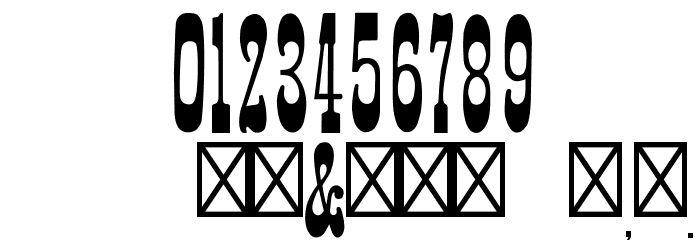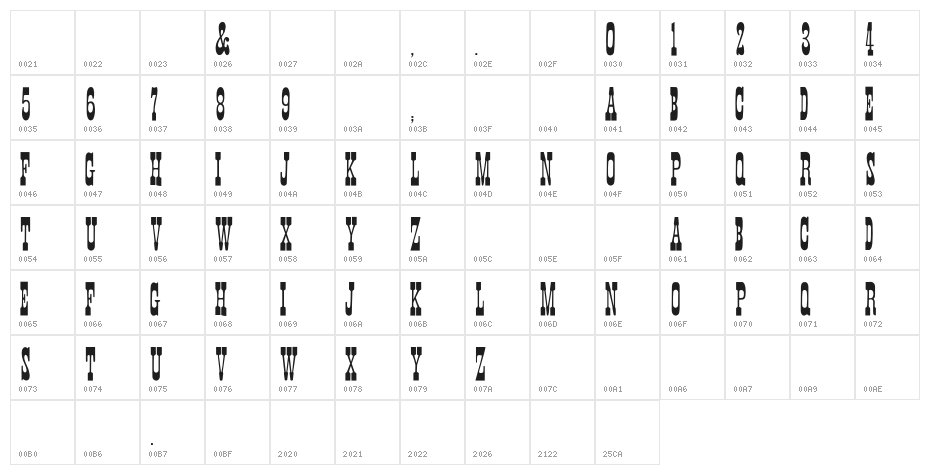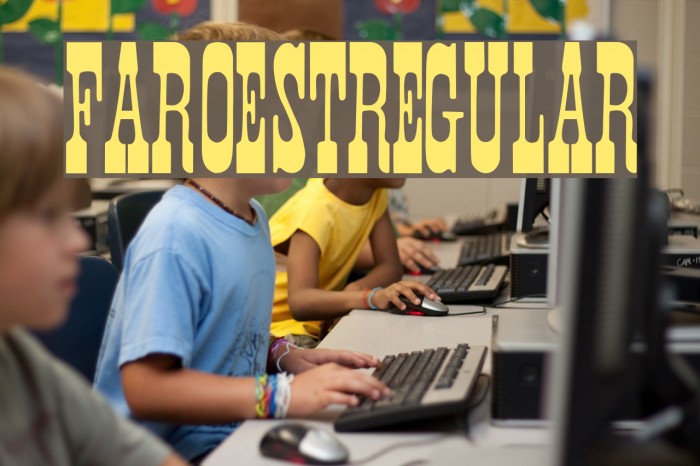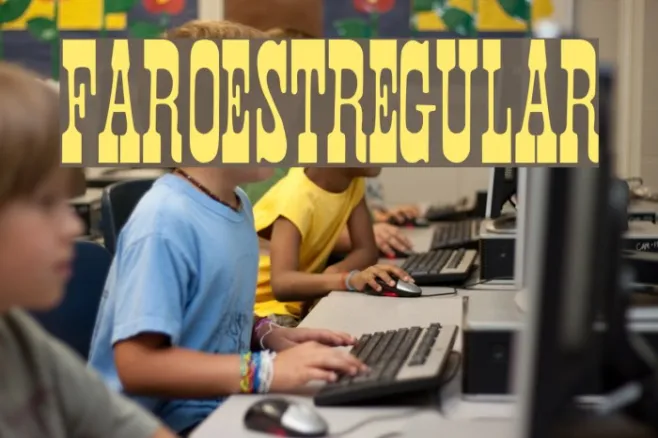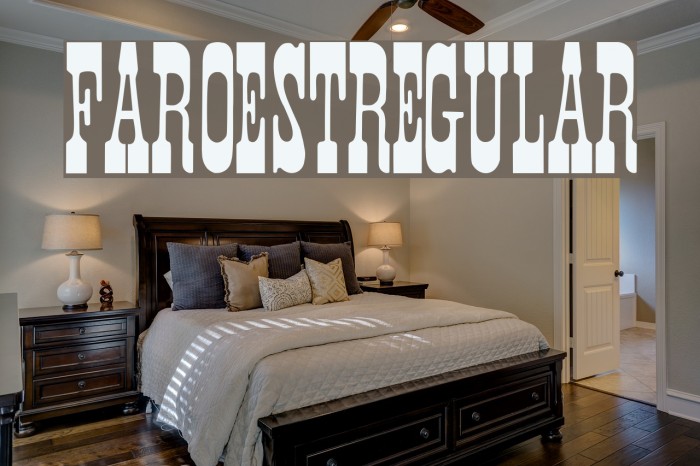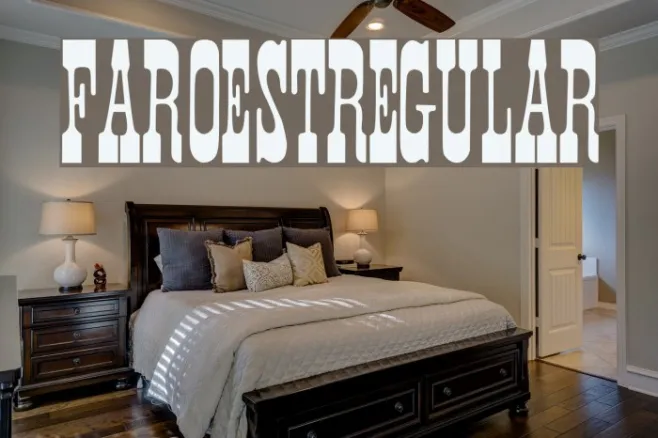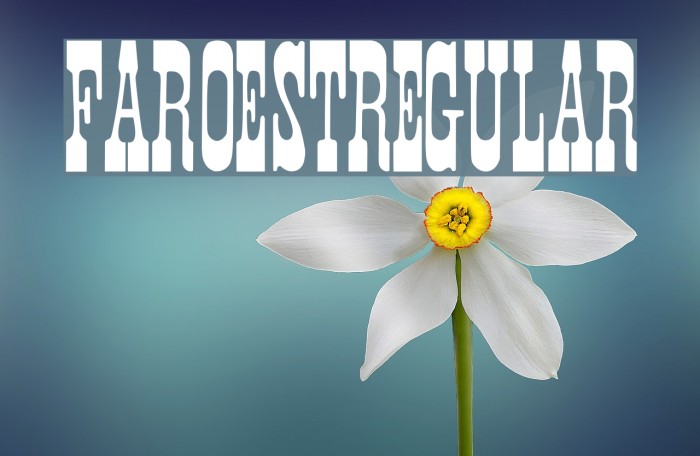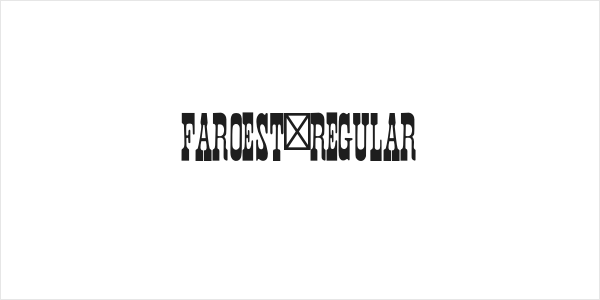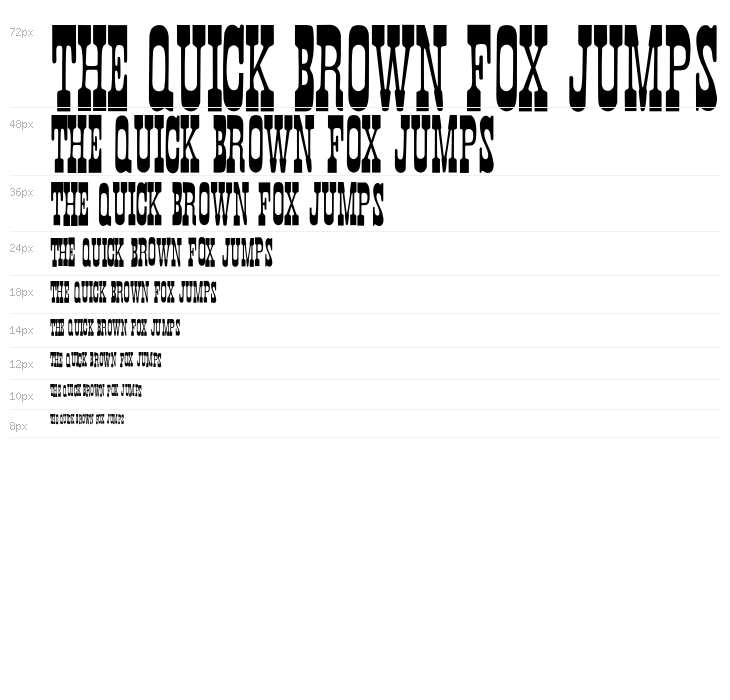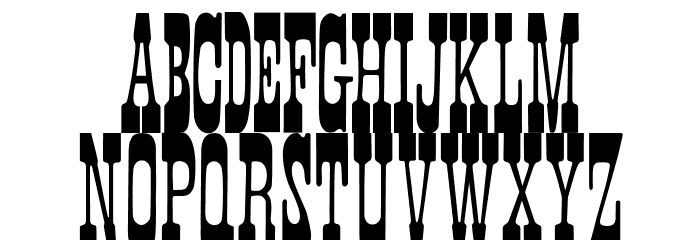
Faroest-Regular Font
Faroest-Regular Description
This font features a bold and striking design with a distinctly Western or vintage feel. The characters are tall and narrow, with thick vertical strokes and thin horizontal lines, creating a high contrast that enhances readability and impact. The serifs are prominent and squared, adding to the robust and sturdy appearance. The overall style is reminiscent of old Western signage or wanted posters, making it ideal for projects that require a touch of nostalgia or ruggedness. The numbers and special characters maintain the same bold and distinctive style, ensuring consistency across all text elements.
Overall StyleVintage
Proposed ProjectsIdeal for Western-themed posters, vintage branding, signage, and event invitations.